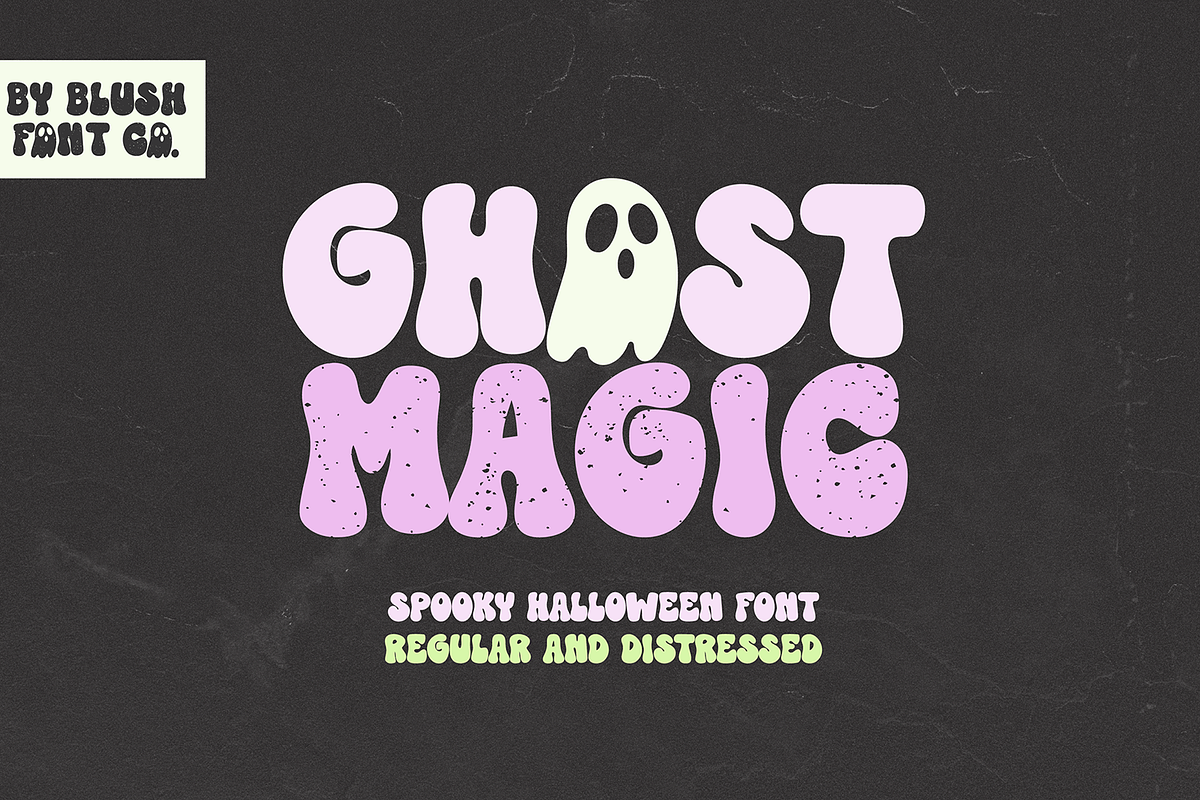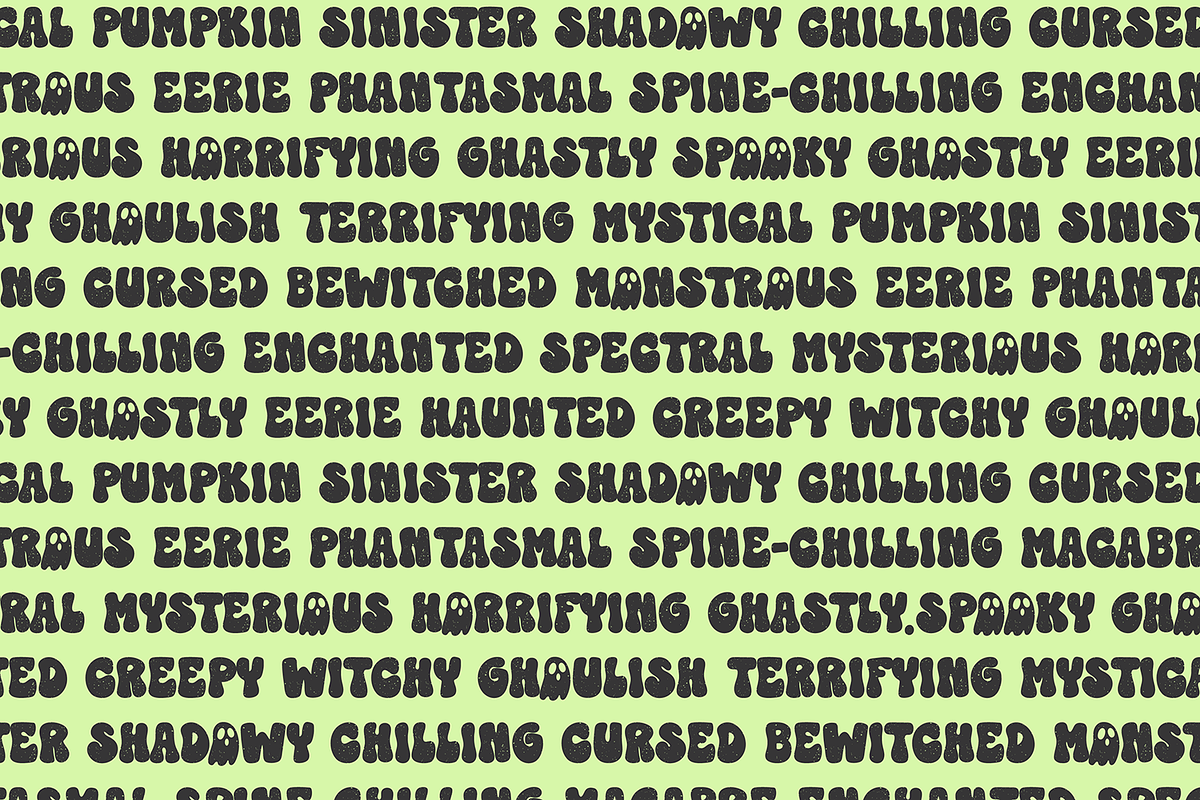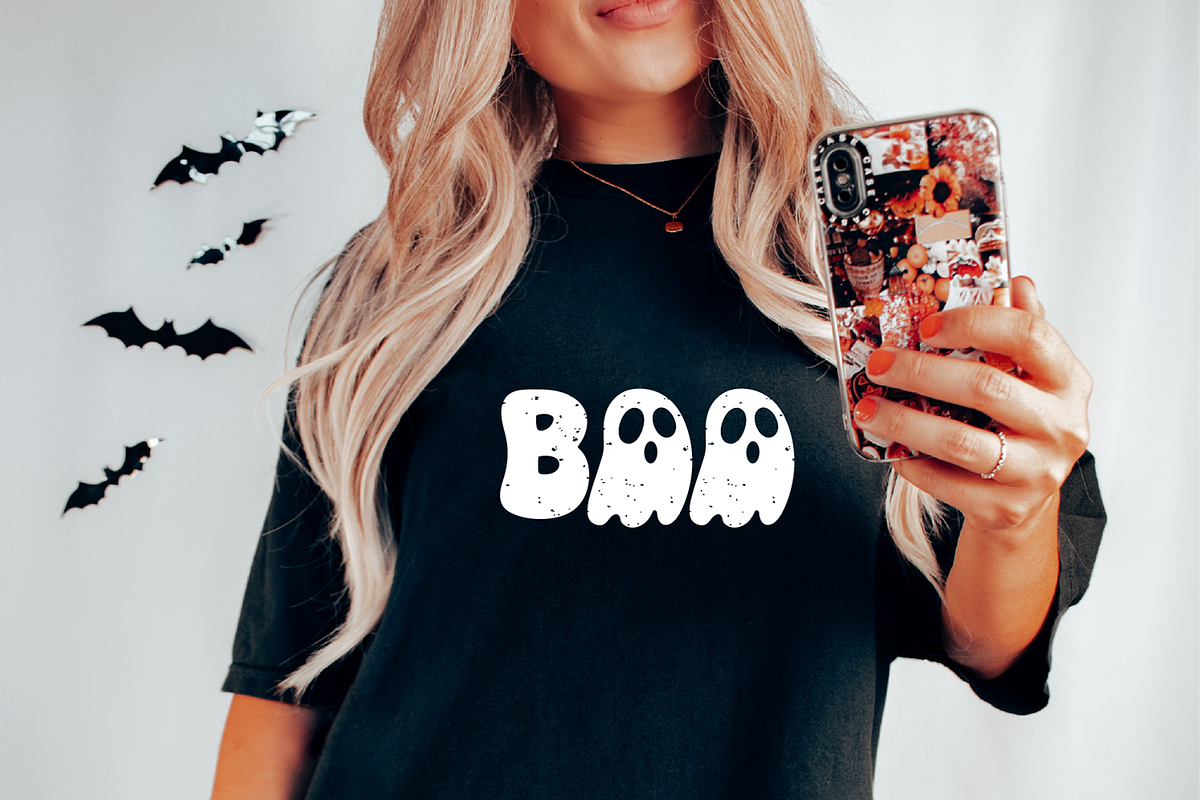
GHOST MAGIC (Regular and Distressed)
GHOST MAGIC - Includes both regular and distressed versions.
This retro font is perfect for your Halloween projects!